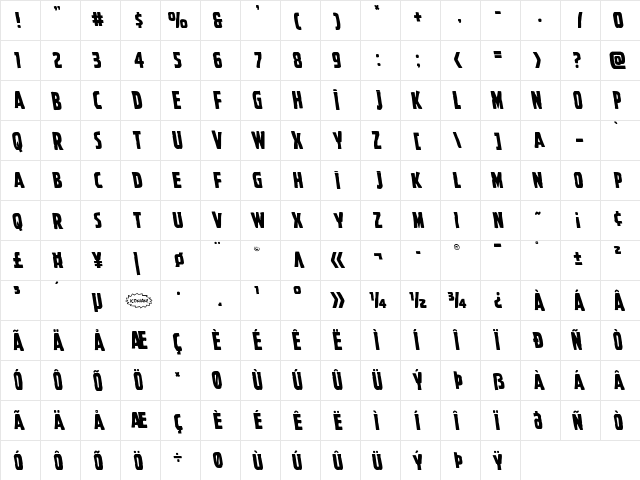
Ghoulish Intent Leftalic Italic
Design Context for Ghoulish Intent Leftalic Typeface
Ghoulish Intent Leftalic is a composed and adaptable typeface that performs quietly and consistently across a wide range of design contexts. The dynamic lean of this cut emphasises speed and emphasis in any layout.